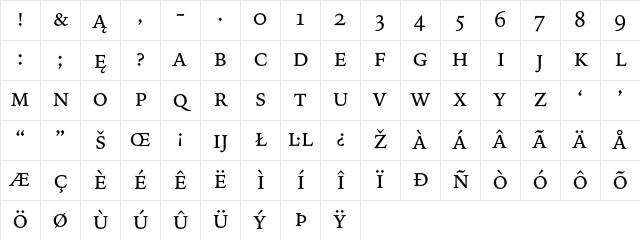
Bitstream Iowan Old Style Small Cap
Style: Small Cap
Bitstream Iowan Old Style Family
Bitstream Iowan Old Style Small Cap
Complete Bitstream Iowan Old Style Small Cap glyph index. Displaying only characters natively supported by Bitstream Iowan Old Style Small Cap font.
Design Context for Bitstream Iowan Old Style
Bitstream Iowan Old Style is a composed and adaptable typeface that performs quietly and consistently across a wide range of design contexts.